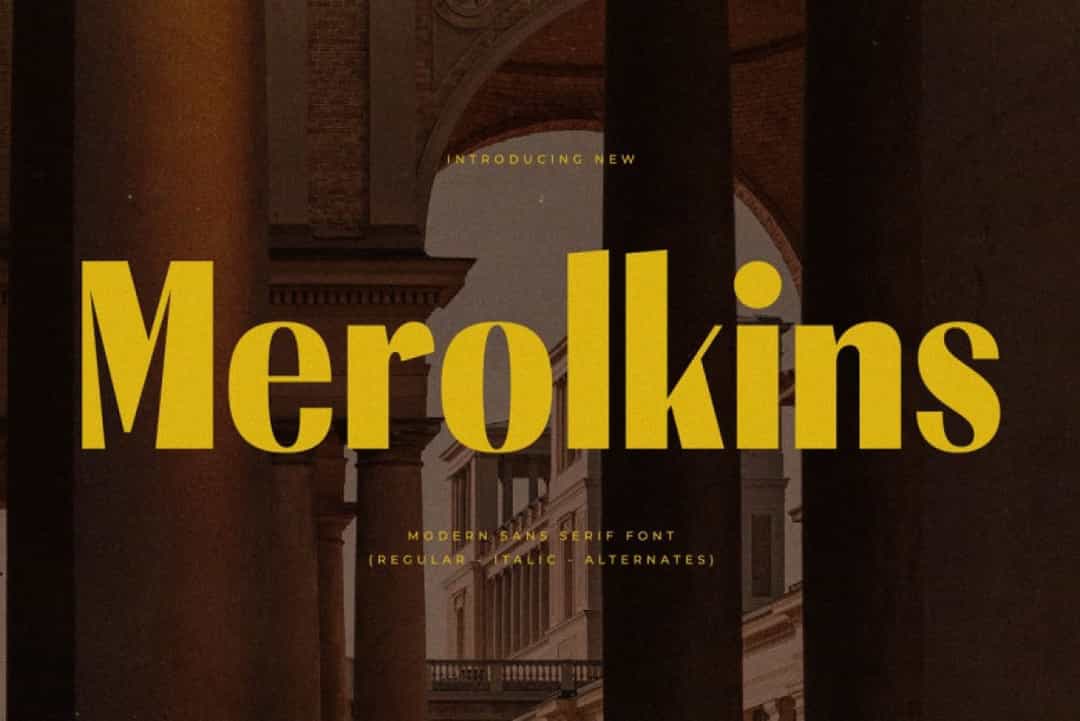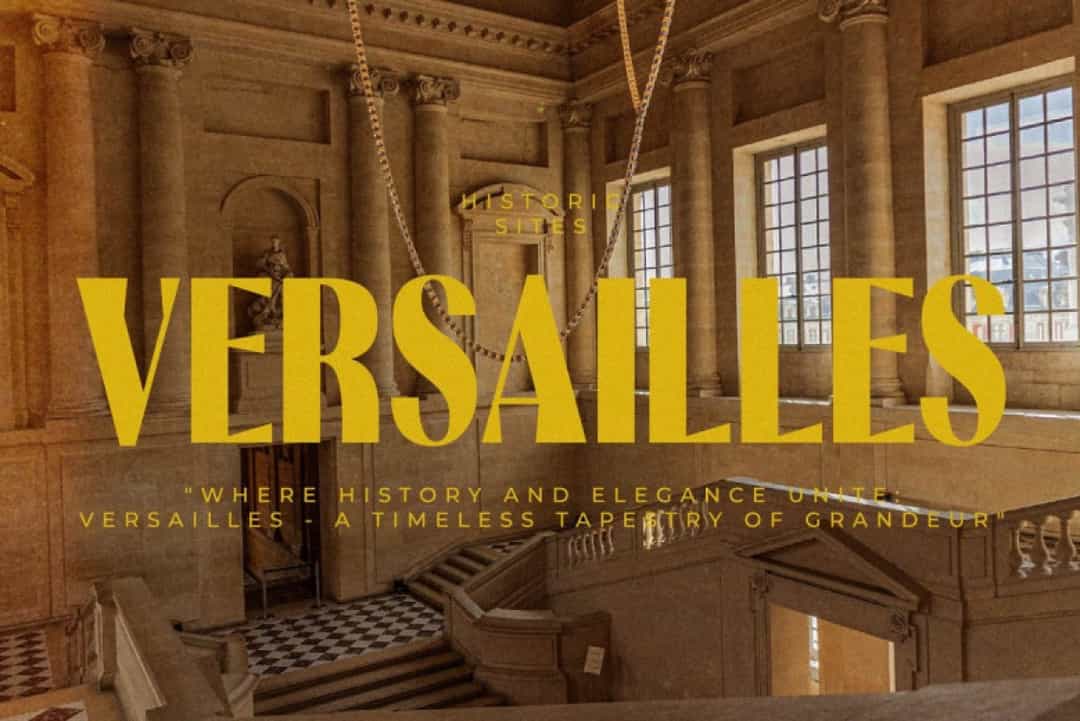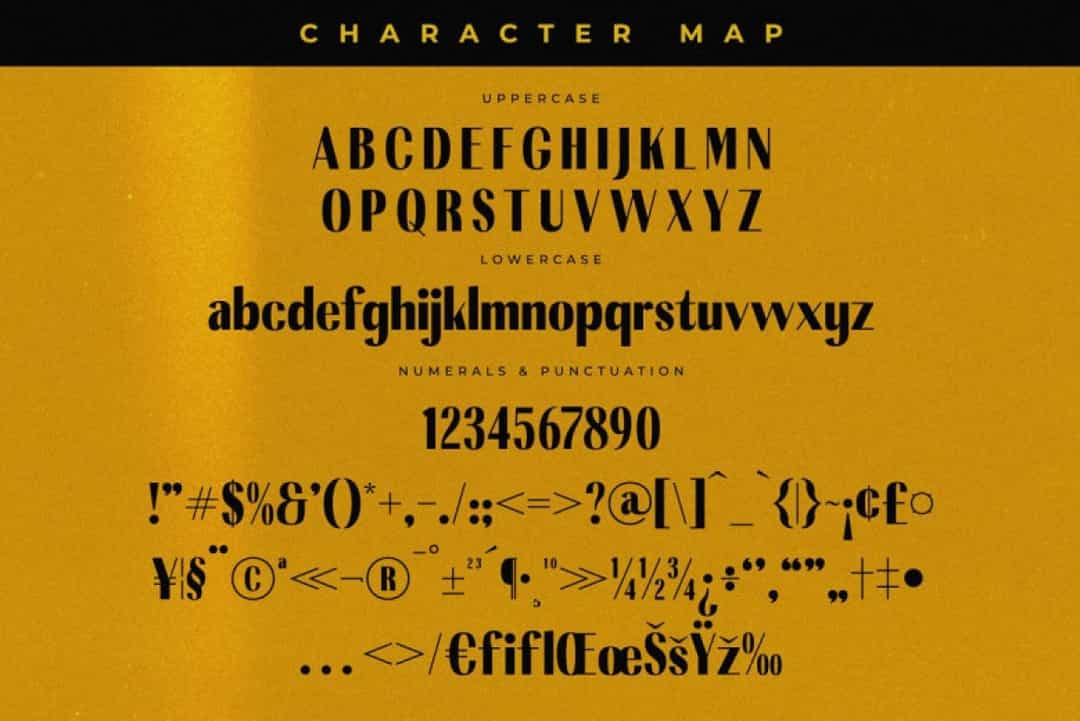
Merolkins can be described as a sophisticated sans-serif font with a sophisticated style. Not too thin nor too bulky, yet well balanced and varied Florania was designed to enhance the appearance of your work and is perfect for creating luxurious logos, book or film name designs, fashion clothing brand names designs, magazine letters, quotes and much more.